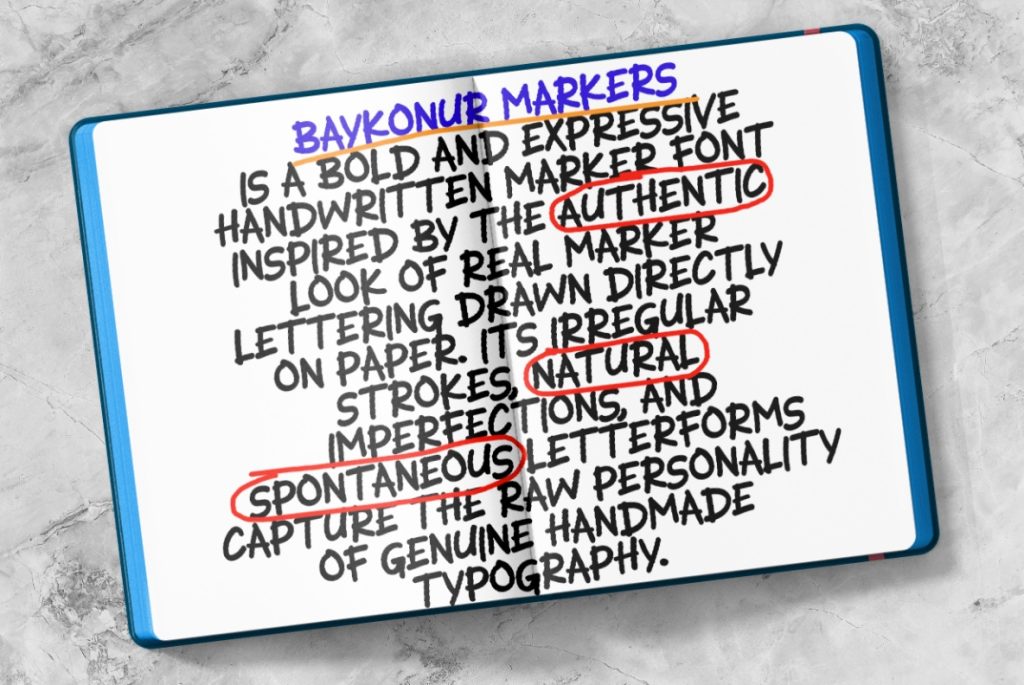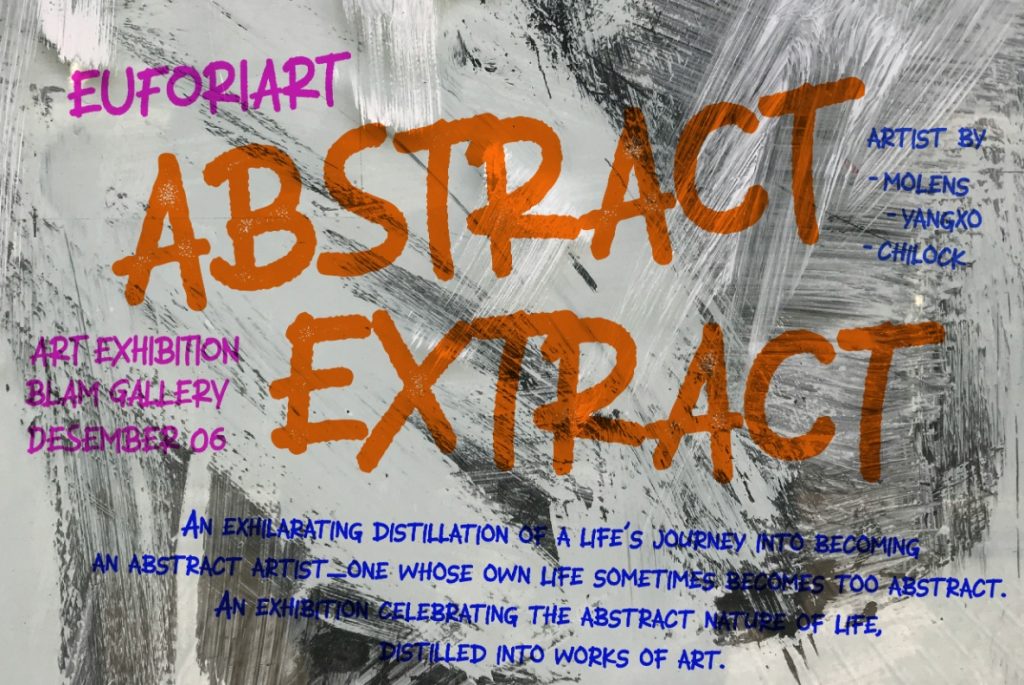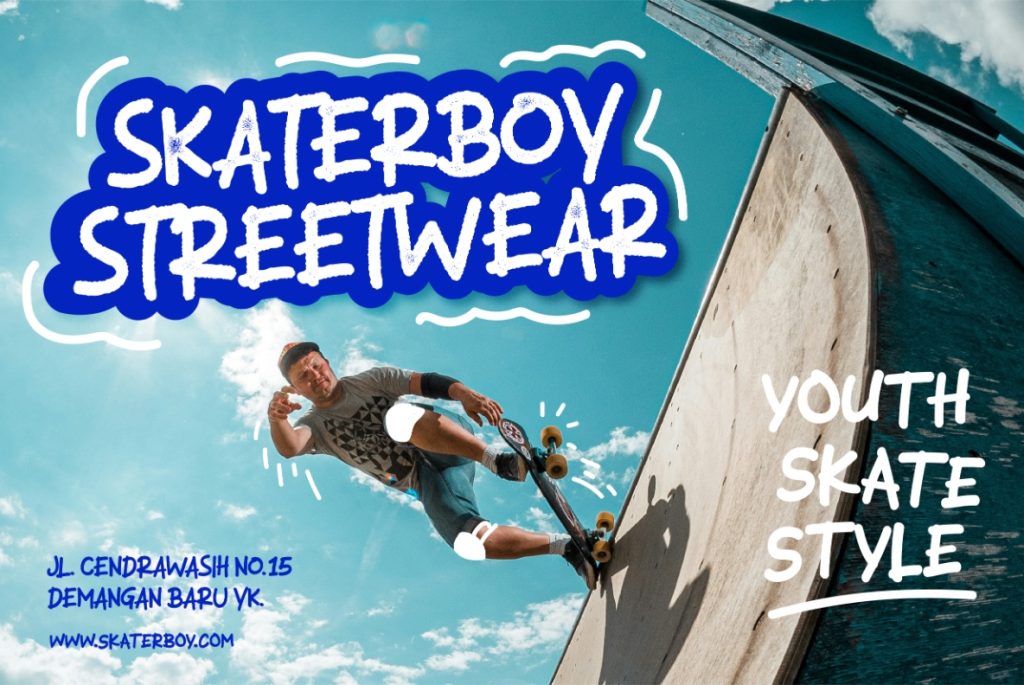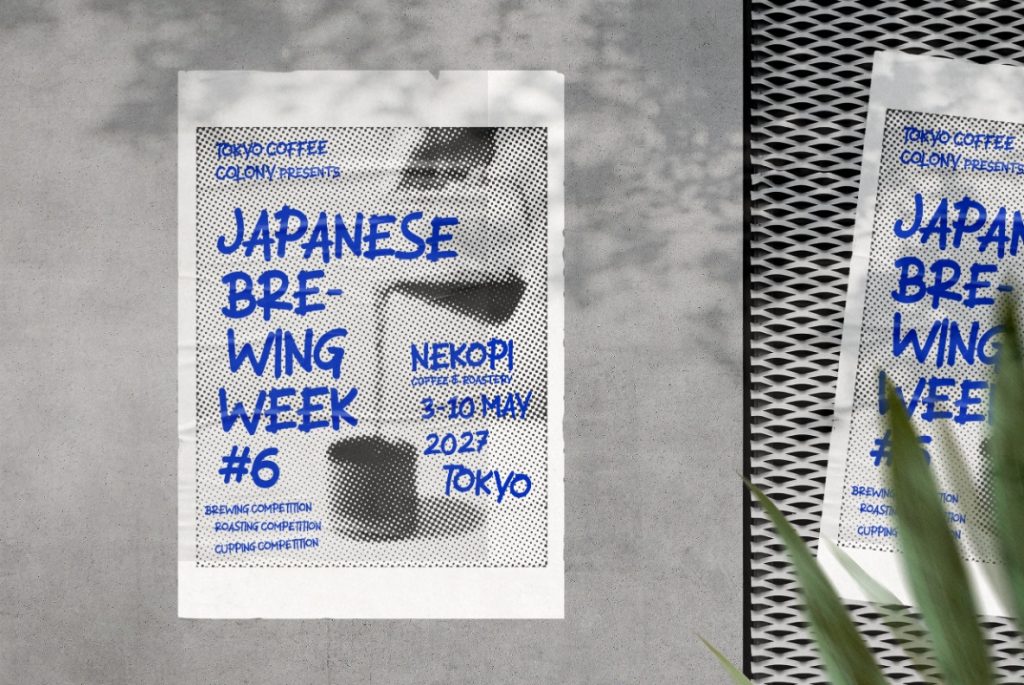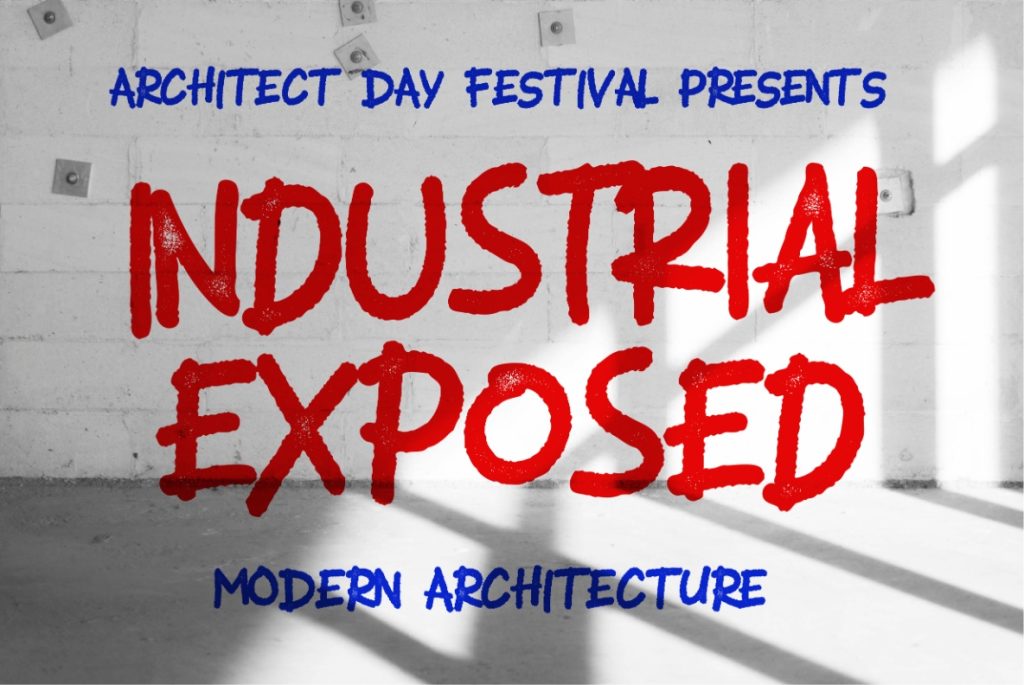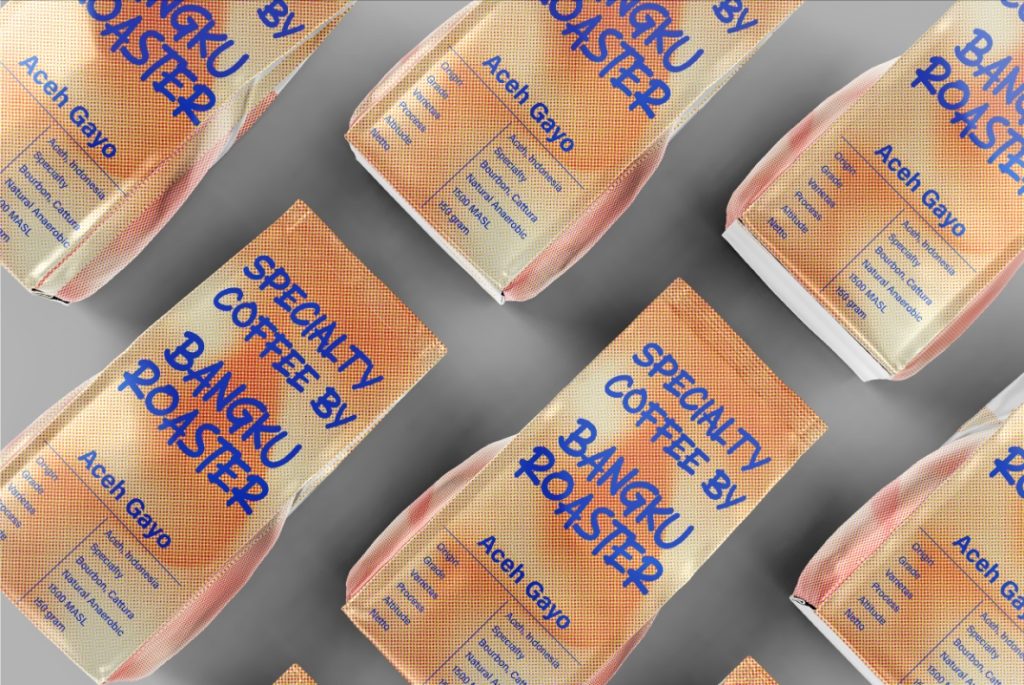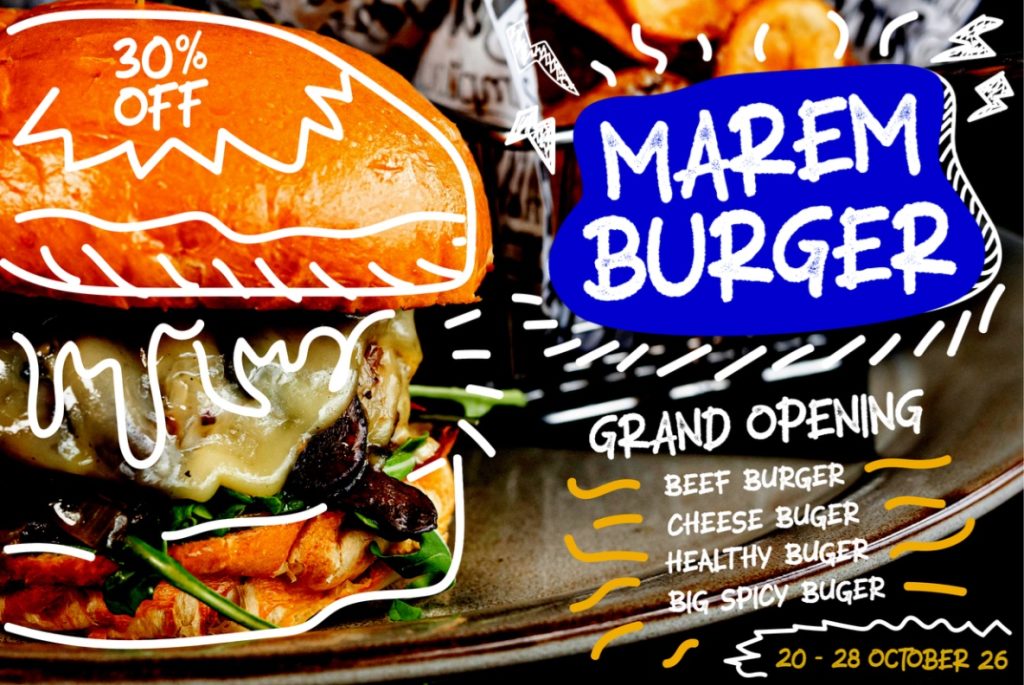
In a world filled with perfectly polished digital typography, sometimes the most memorable designs are the ones that feel a little imperfect.
That is the idea behind Baykonur Markers, a handwritten marker font inspired by the authentic look of real marker lettering drawn directly onto paper. With irregular strokes, natural imperfections, and a bold handmade personality, Baykonur Markers brings the feeling of genuine hand lettering into your digital design projects.
Rather than trying to make every letter perfectly uniform, this handwritten marker font embraces the unpredictable character of manual writing. The result is typography that feels personal, expressive, energetic, and unmistakably handmade.
What Makes a Handwritten Marker Font Special?
Marker lettering has a unique visual character that is difficult to reproduce with perfectly geometric fonts.
When a real marker touches paper, the result is influenced by pressure, direction, speed, ink flow, and the surface of the paper. Some strokes become heavier, some edges become rougher, and individual letters may not align perfectly.
These small imperfections are exactly what make handwritten typography feel authentic.
A good marker font captures this natural variation while maintaining enough readability for practical design use. Instead of looking mechanically generated, the letters feel as though they were actually written by hand.
Baykonur Markers was created with this philosophy in mind.
Inspired by Real Marker Writing
Baykonur Markers takes inspiration from the spontaneous appearance of handwritten marker lettering on paper.
The letterforms are intentionally irregular, creating a natural rhythm throughout words and phrases. The strokes are not overly refined, allowing the font to retain the character of real hand-drawn typography.
This makes Baykonur Markers a great choice when you want your design to communicate:
- Authenticity
- Creativity
- Energy
- Personality
- Handmade craftsmanship
- Casual confidence
The imperfections are not flawsโthey are part of the design.
Meet the Three Styles of Baykonur Markers
One of the biggest advantages of Baykonur Markers is that it comes with three different styles: Regular, Rough, and Stamp.
Each style provides a different interpretation of the same handmade marker aesthetic.
1. Baykonur Markers Regular
The Regular style delivers the most natural and versatile marker lettering experience.
It maintains the irregularity and personality of handwritten text while keeping the overall appearance relatively clean and easy to read.
This makes it suitable for a wide range of projects, including logos, packaging, social media graphics, headlines, quotes, and branding.
Use Regular when you want a natural handwritten look without excessive texture.
2. Baykonur Markers Rough
Looking for something more raw?
The Rough style adds a stronger distressed and imperfect character to the lettering. The rough edges and textured appearance make it feel closer to an expressive marker stroke made quickly by hand.
This style works particularly well for designs that need a bold, rebellious, urban, or handcrafted aesthetic.
Try Rough for:
- Streetwear graphics
- Posters
- Band artwork
- Skateboard designs
- Stickers
- Merchandise
- Vintage-inspired graphics
3. Baykonur Markers Stamp
The Stamp style takes the concept in a different direction.
Inspired by imperfect ink impressions and vintage rubber stamps, this version combines the bold personality of marker lettering with a distressed stamped appearance.
The result is typography that feels tactile, printed, and slightly weathered.
Stamp is particularly useful for badges, labels, packaging, logos, merchandise, vintage branding, and promotional graphics.
Why Imperfect Typography Works
Modern digital design often focuses on precision.
Perfect alignment, consistent spacing, clean curves, and symmetrical shapes are important in many design situations. But when every element is perfectly controlled, a design can sometimes lose its human character.
This is where hand-drawn typography can make a difference.
Small imperfections can make lettering feel more approachable and emotionally engaging. They suggest that someone actually created the lettering rather than simply selecting a standard digital typeface.
For brands and designers looking to create a more authentic visual identity, this can be especially valuable.
Perfect for Branding and Packaging
Handwritten fonts are particularly popular in branding because they can help create a recognizable personality.
Baykonur Markers captures the spontaneity of real marker writing while giving designers the flexibility of a digital font family.
From clean handwritten lettering to rough strokes and imperfect stamp textures, the three styles allow you to explore different sides of the same creative idea.
If your next project needs typography that feels bold, authentic, imperfect, and handmade, Baykonur Markers is ready to make its mark.
Baykonur Markers โ Write it rough. Keep it real. Make it handmade.